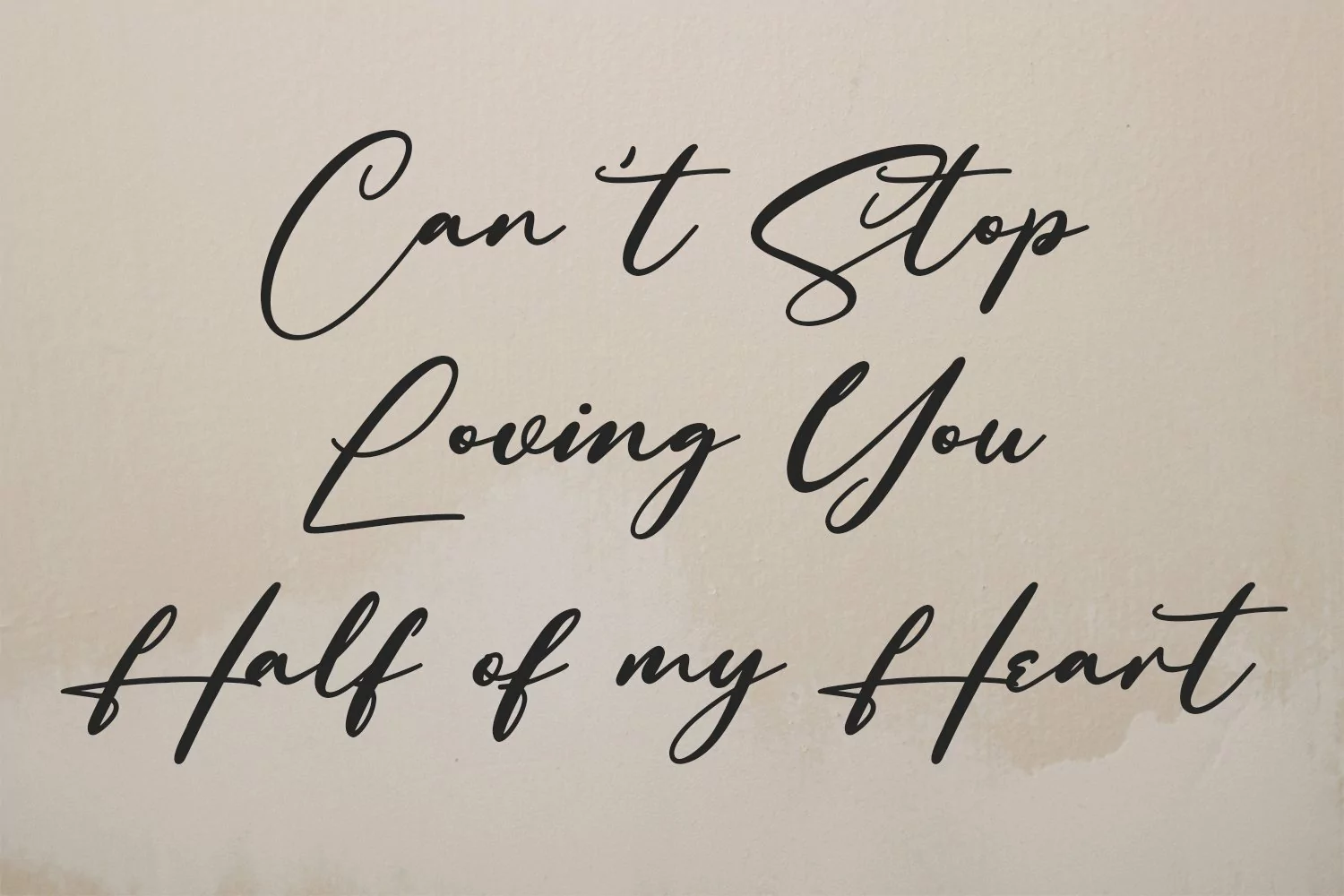
Constatic is a signature script font. With clean stroke and fun character. It has Opentype features a couples of ligature. To give you an extra creative work. Constatic signature font support multilingual more than 100+ language. This font is good for logo design, Social media, Movie Titles, Books Titles, a short text even a long text letter and good for your secondary text font with sans or serif. Make a stunning work with Constatic signature script font.
Constatic